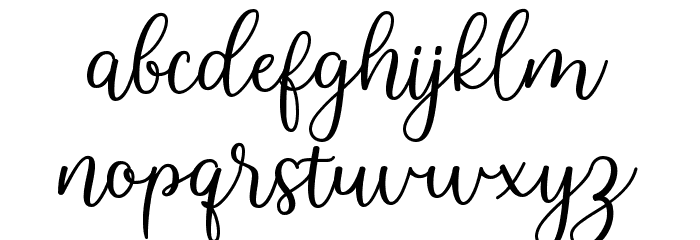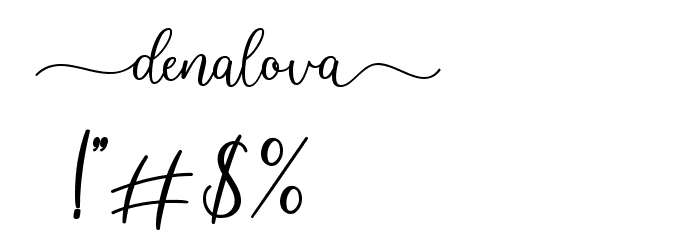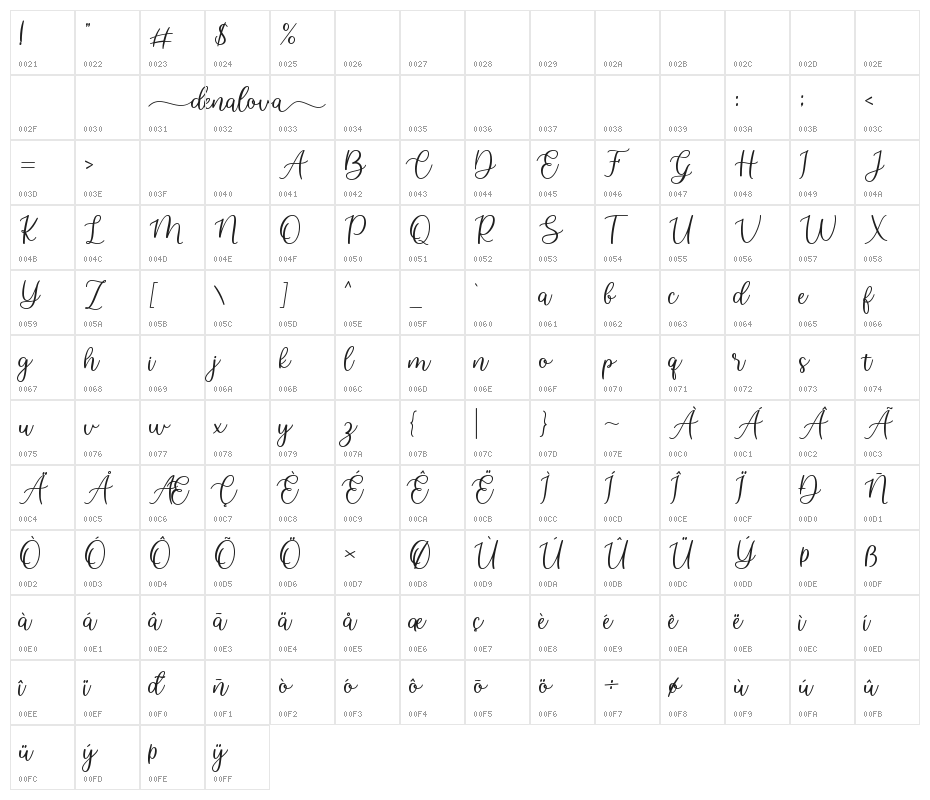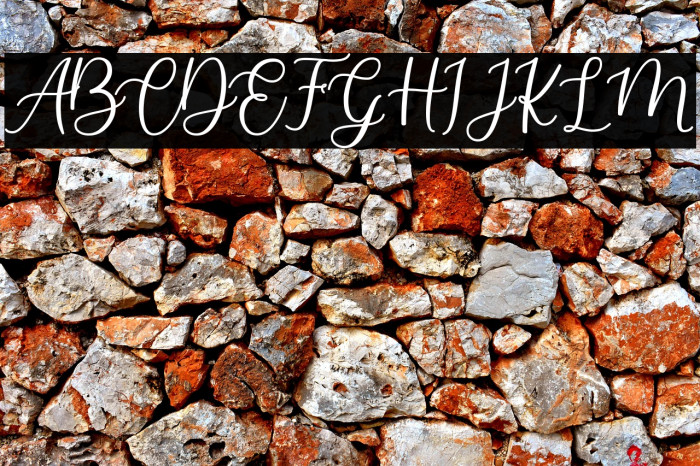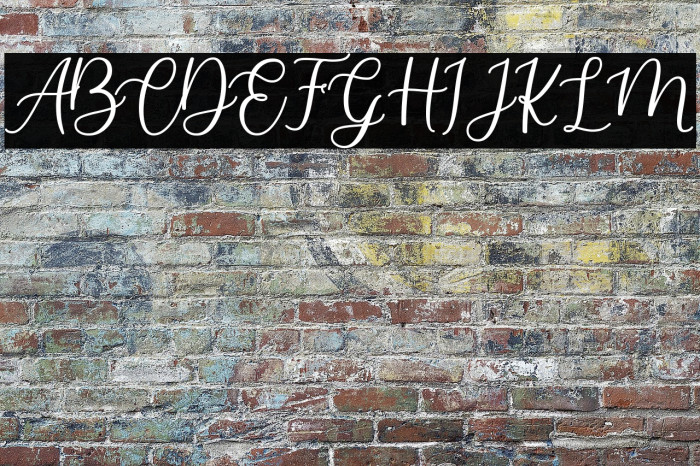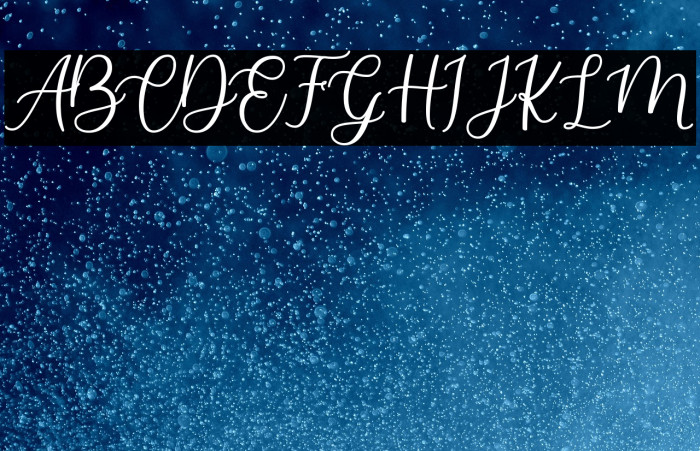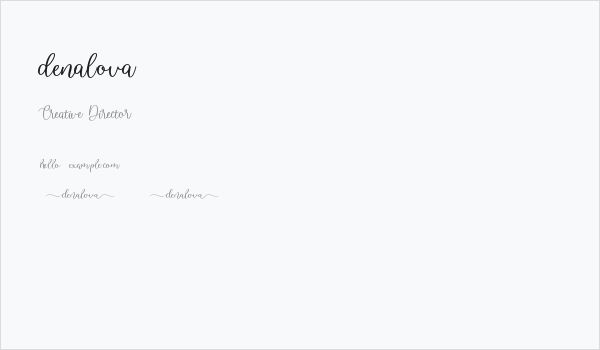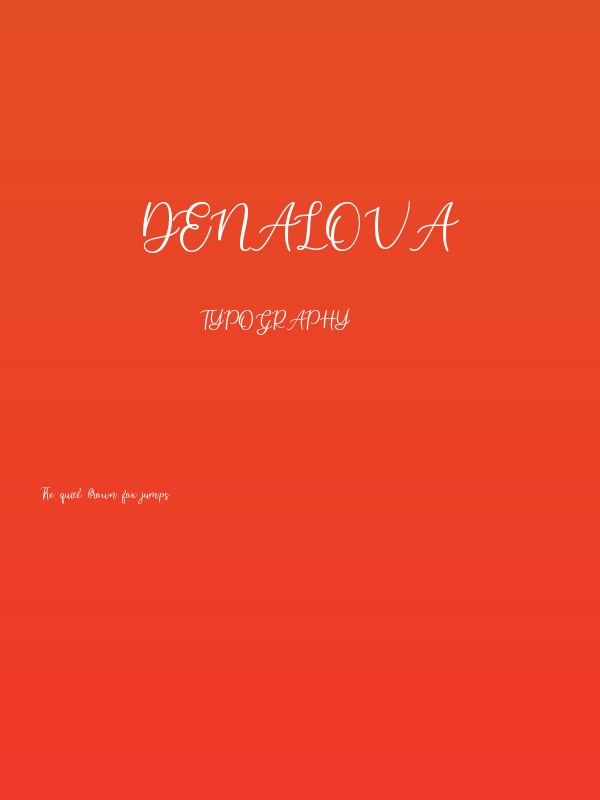
denalova Font
This elegant script font features a flowing, cursive style with smooth, connected strokes that give it a graceful and sophisticated appearance. The uppercase letters are tall and slightly narrow, with distinctive loops and swirls that add a touch of flair. The lowercase letters are more rounded and compact, maintaining a consistent flow throughout. The font includes a variety of special characters, such as punctuation marks and symbols, which are designed to complement the overall aesthetic. Its delicate lines and artistic curves make it ideal for projects that require a personal, handwritten touch.
A graceful and elegant script font with flowing, cursive strokes.
- Font: denalova
- Proposed Projects: Ideal for wedding invitations, greeting cards, branding, and logo design.
- Category: Script
- Overall Style: Elegant
- Use Case: Logos, Invitations, Decorative text